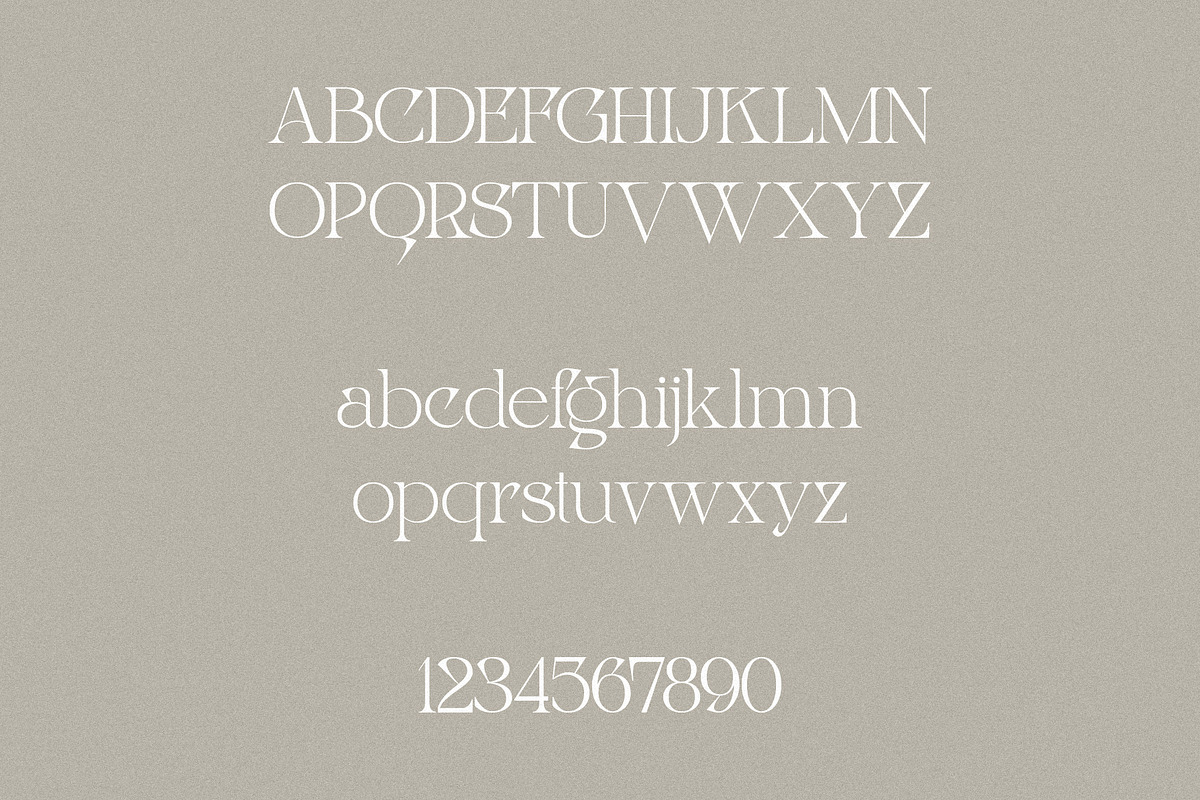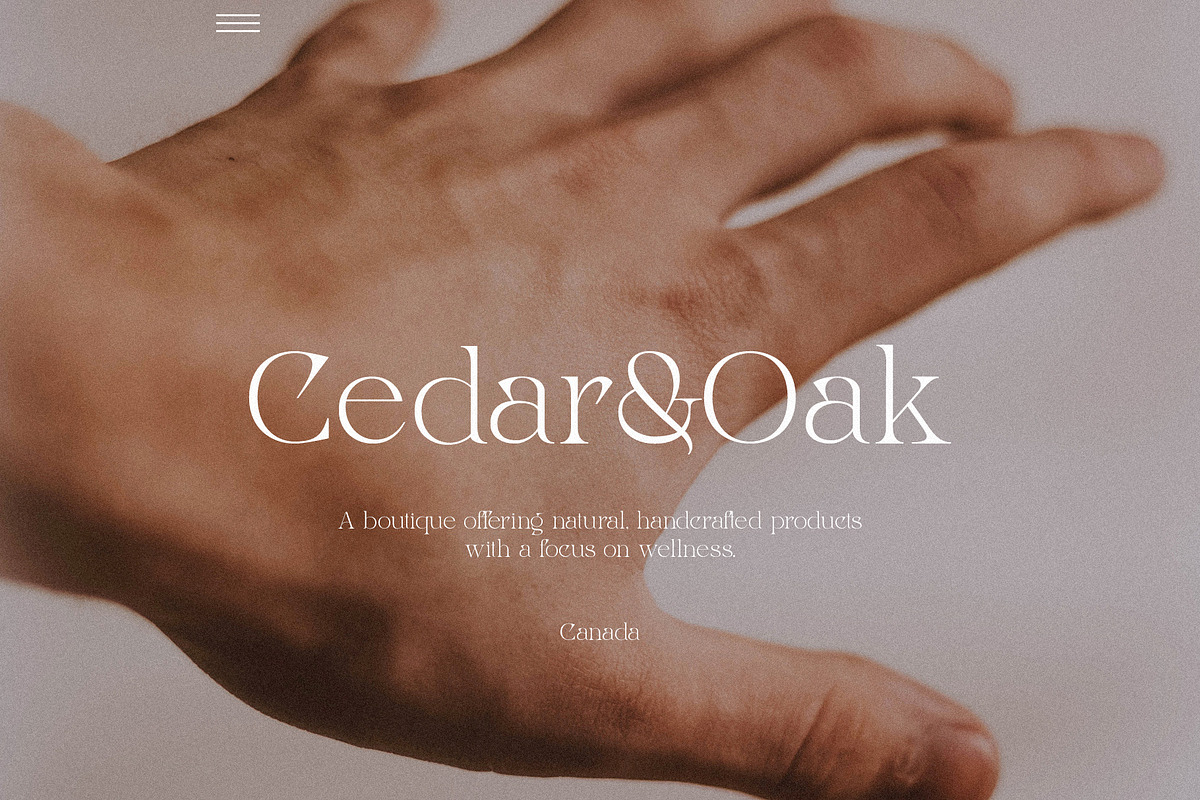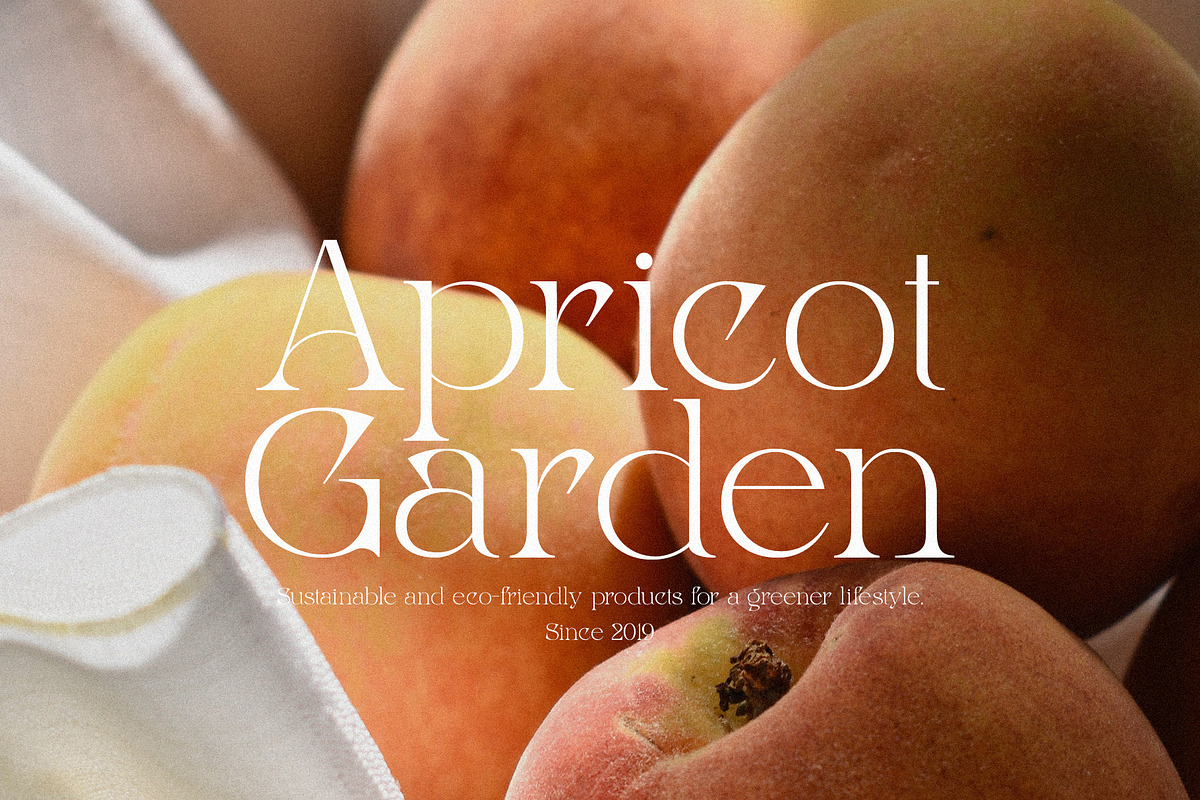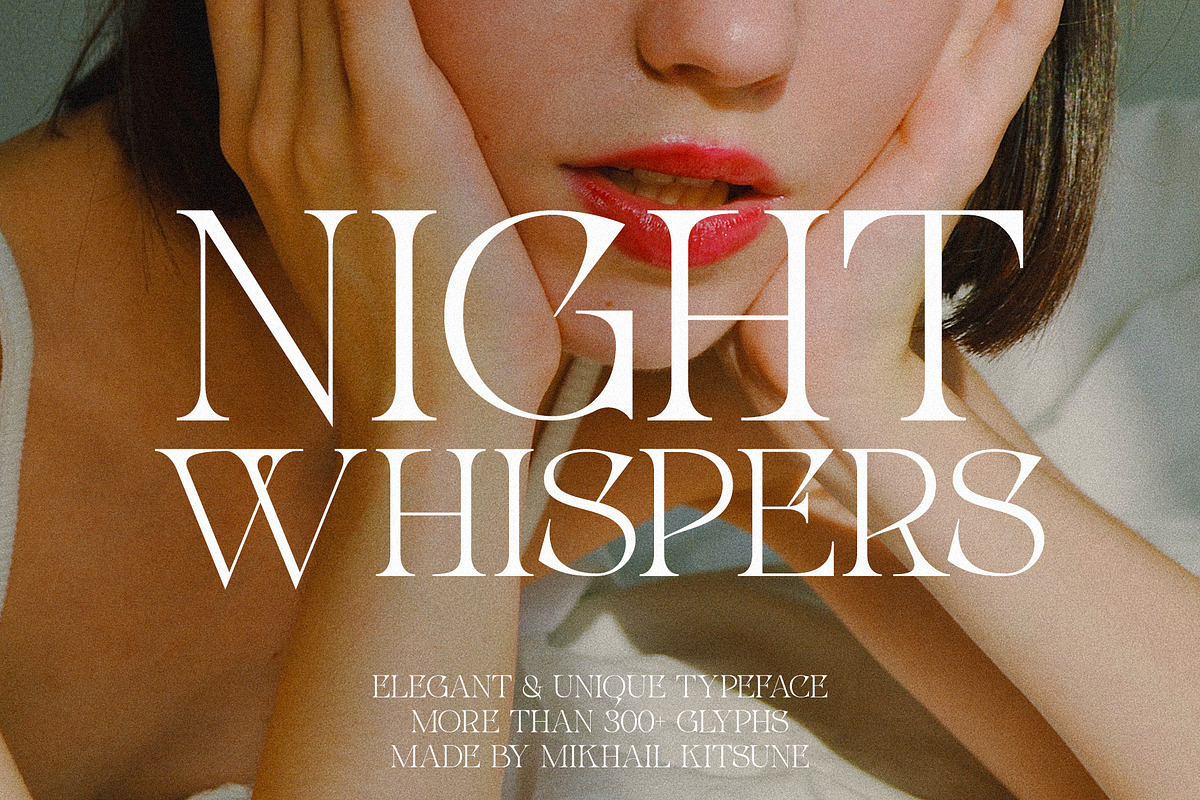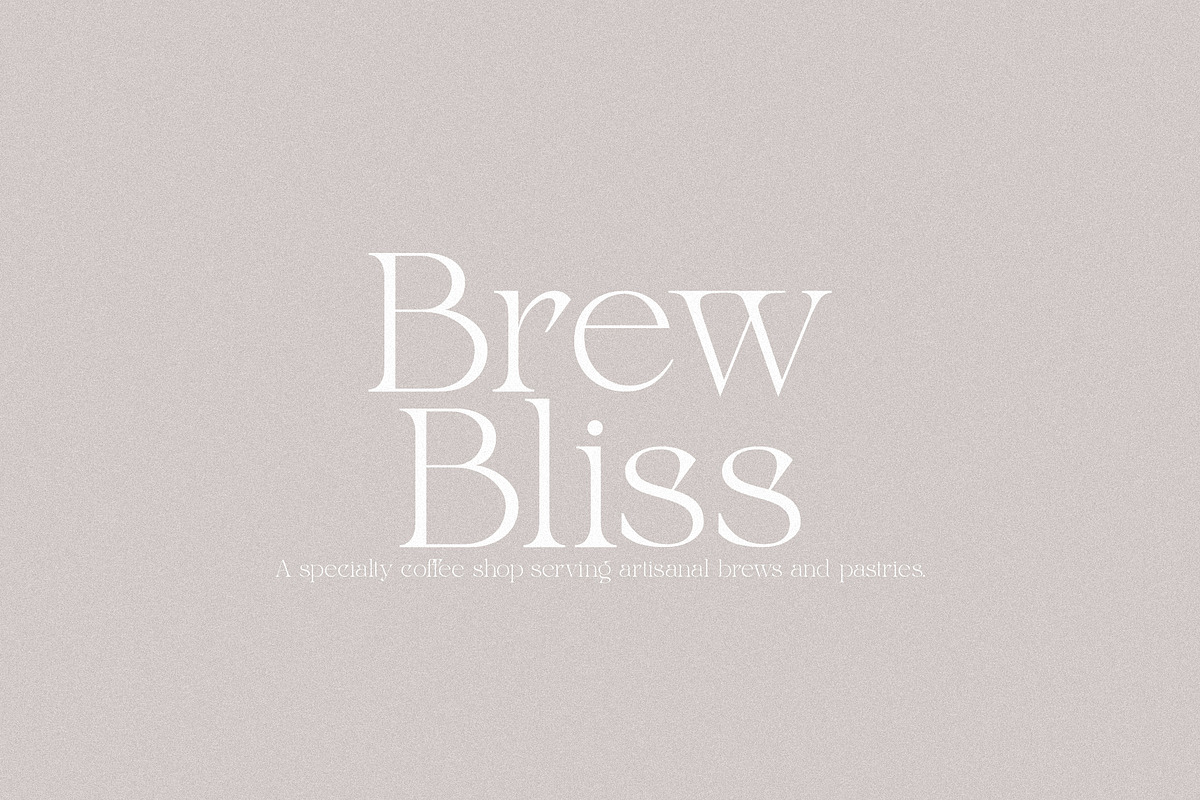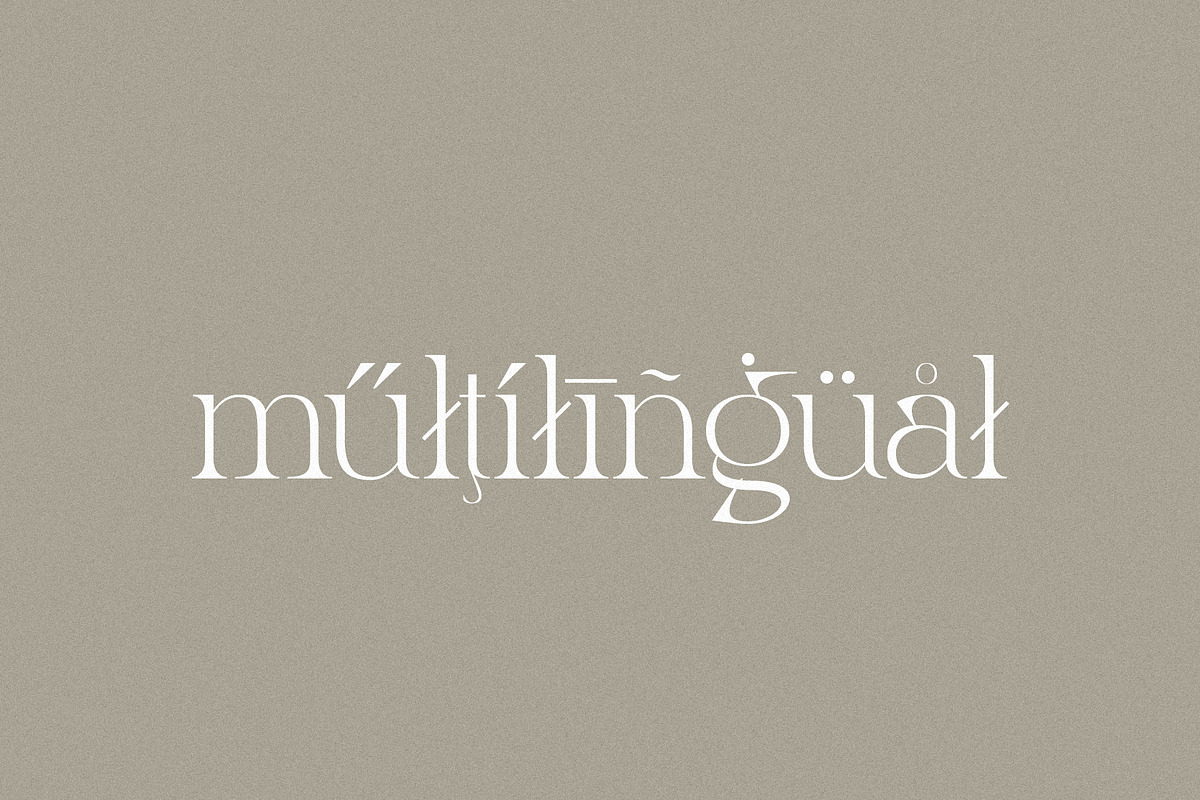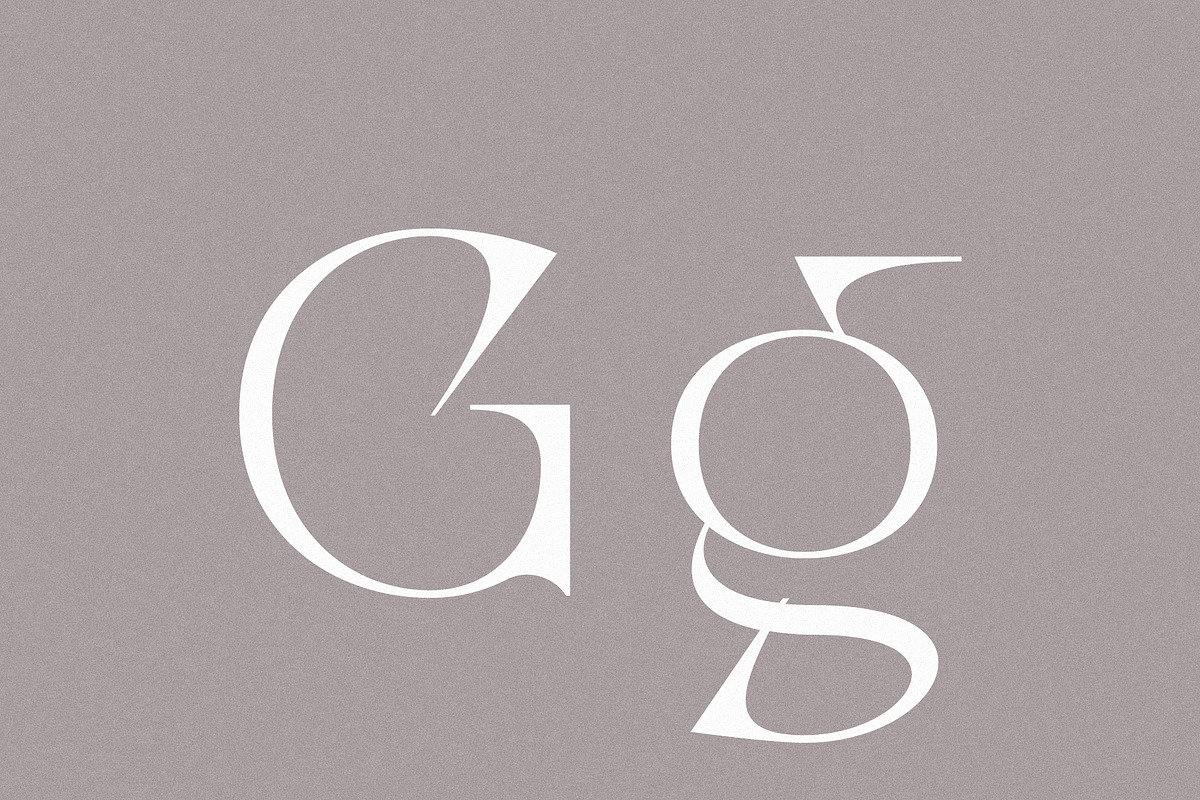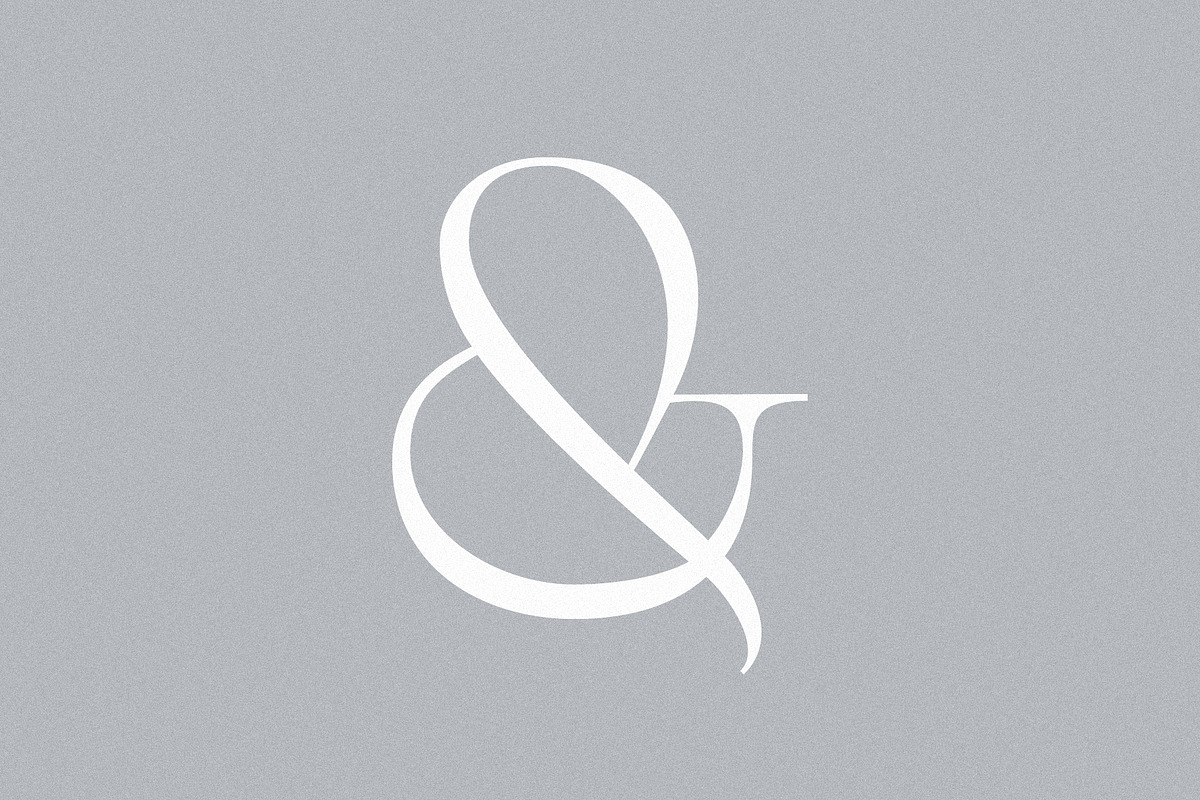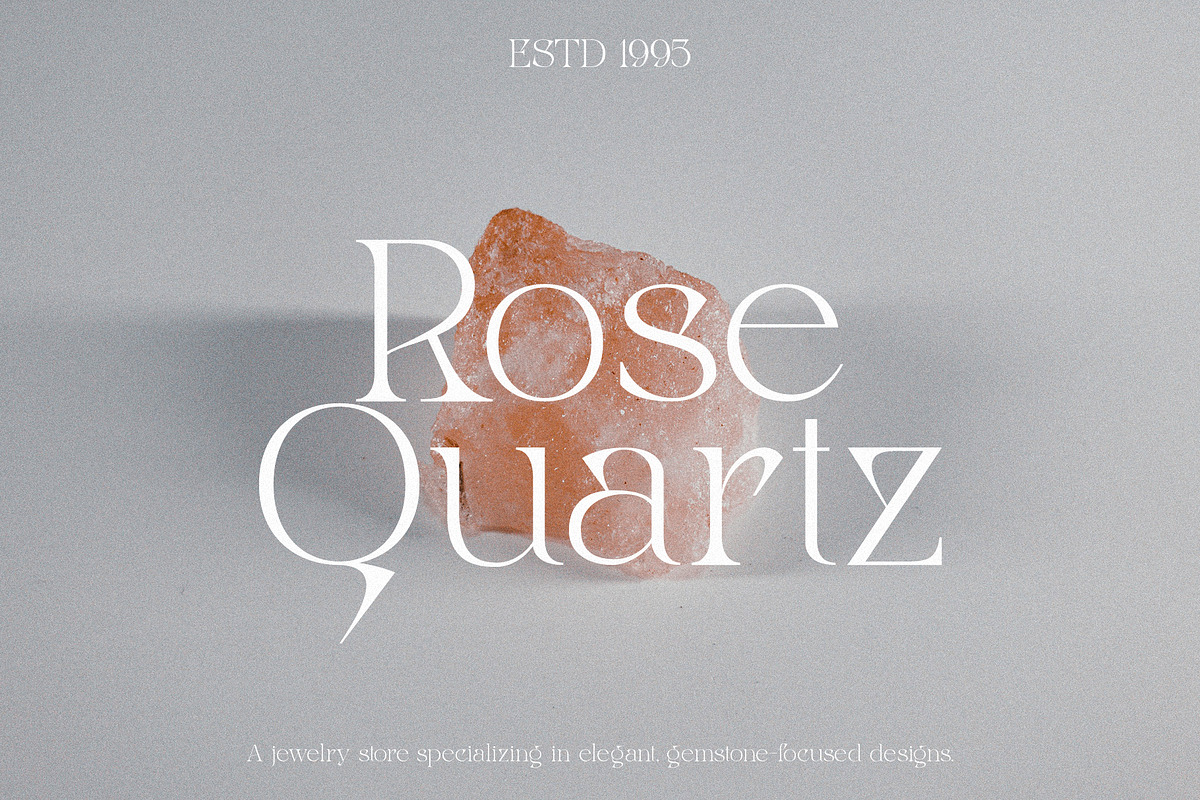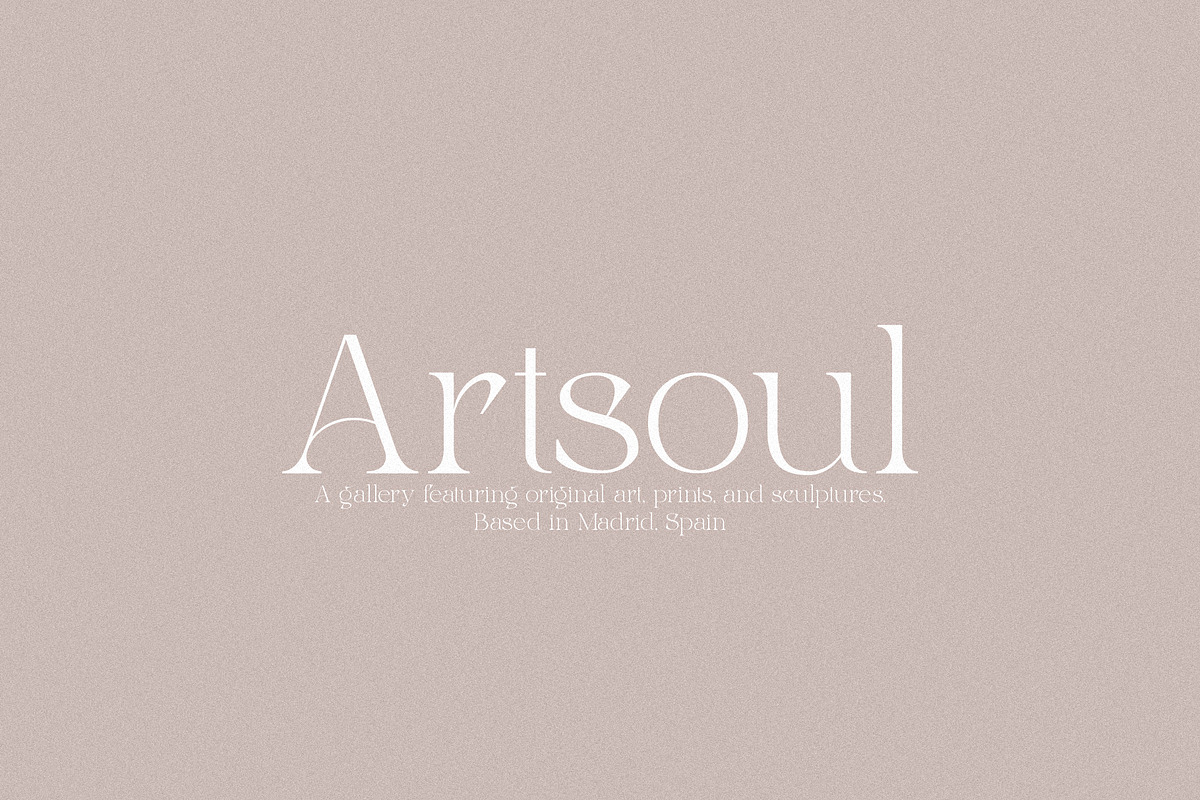
Night Whispers - Elegant Serif
Night Whispers is an elegant serif typeface known for its refined, timeless style and delicate details. Perfect for luxury branding, editorial design, and romantic or high-end projects, it features graceful curves and high contrast between thick and thin strokes, adding a touch of sophistication to any layout. Ideal for headings, logos, and invitations.